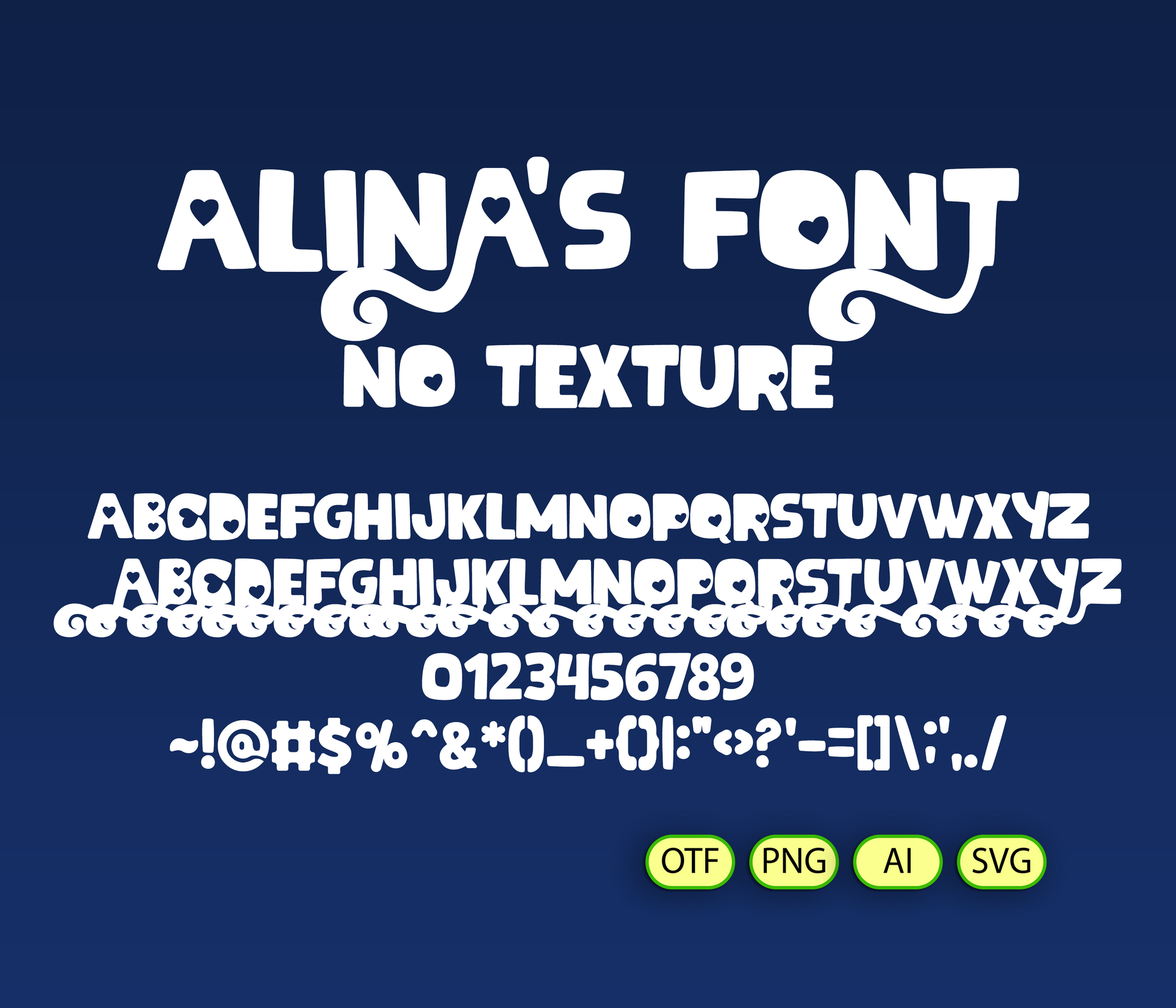
Magical Friendship Tales Font
Trot into a world of enchantment with our Magical Friendship Tales font, bringing to life the whimsy and charm of beloved pony adventures. This special typeface embodies the spirit of friendship stories and delightful escapades. Perfect for adding magic to your creative projects.
Our Magical Friendship Tales font features gentle curves and enchanted elements reflecting the joyful spirit of friendship. Ideal for:
Our font celebrates the magic of friendship and adventure, bringing joy to every design. Whether creating party materials, designing merchandise, or adding whimsy to personal projects, this font captures the spirit of enchantment.